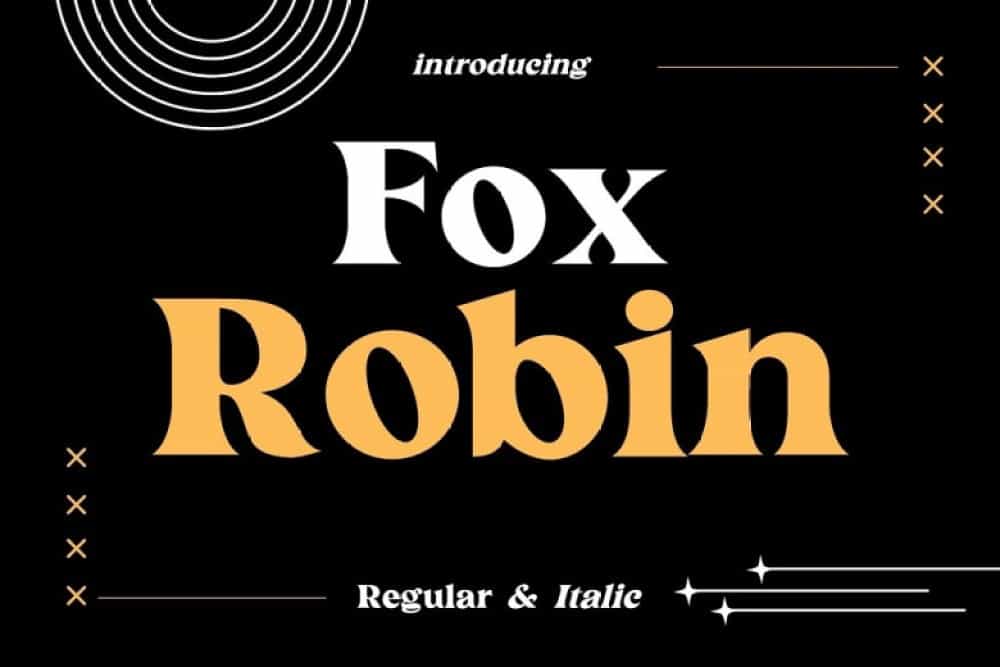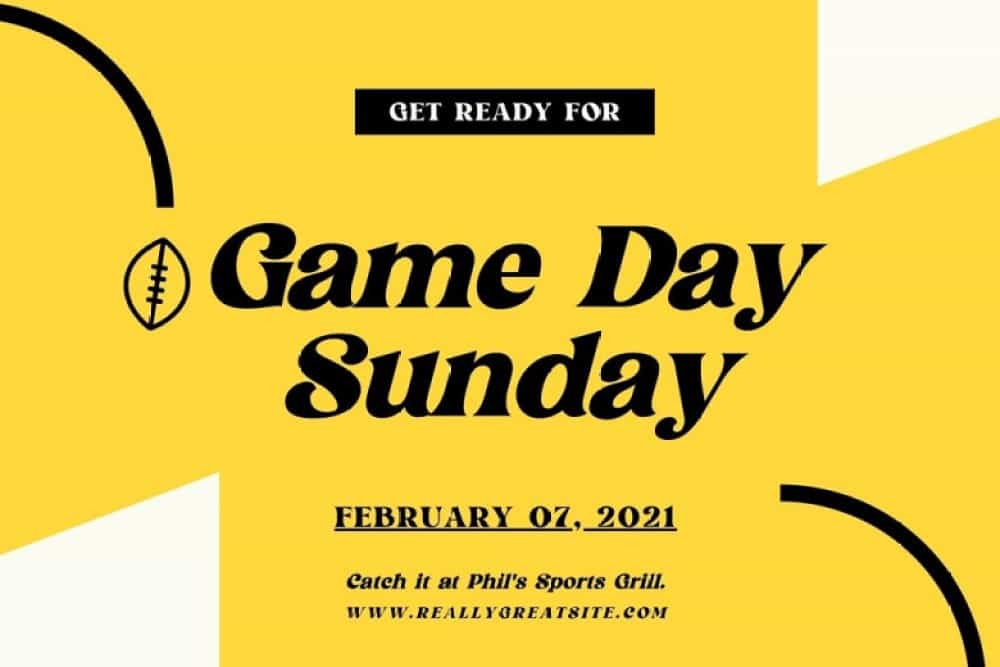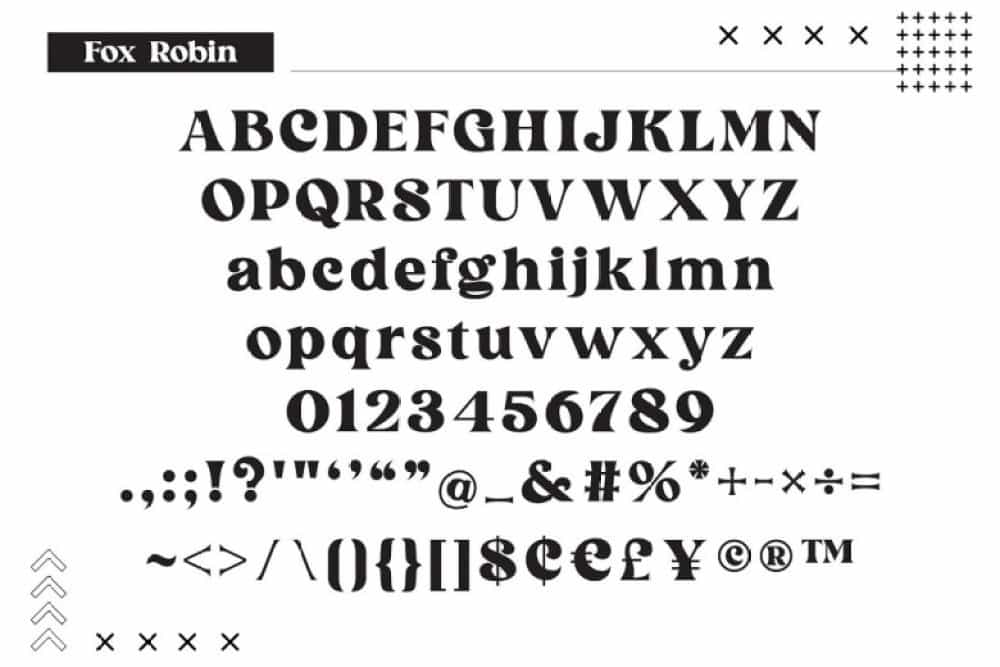
Fox Robin is a lovely serif font. It goes well with both the contemporary as well as the traditional design ensigns. You can use it for all sorts of projects, starting from bloggers to logos and branding, advertisements, invitations, greeting cards, planners, photo albums, decorations and many other.